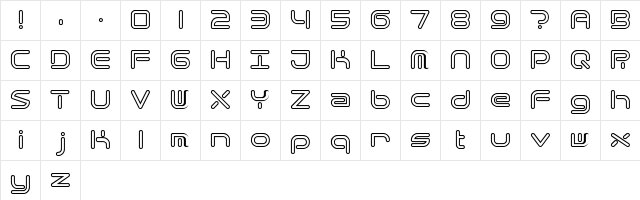
Quantum Round Hollow BRK Regular Free Font
Quantum Round Hollow BRK Regular
Foundry: ￿IGMA FONTS
Designer: ￿IGMA FONTS - Brian Kent
Quantum Round Hollow BRK Family
Design Context for Quantum Round Hollow BRK
Quantum Round Hollow BRK softens its letterforms with rounded terminals, giving it an approachable, friendly quality that works well in consumer-facing and digital contexts.
Font Pairing: Pairs well with a rounded or humanist sans for body copy, maintaining the friendly tone without relying on Quantum Round Hollow BRK to carry extended reading.
Pro Tip: Use Quantum Round Hollow BRK for UI elements, app interfaces, and anywhere a friendly, approachable tone needs to be maintained without sacrificing clarity.